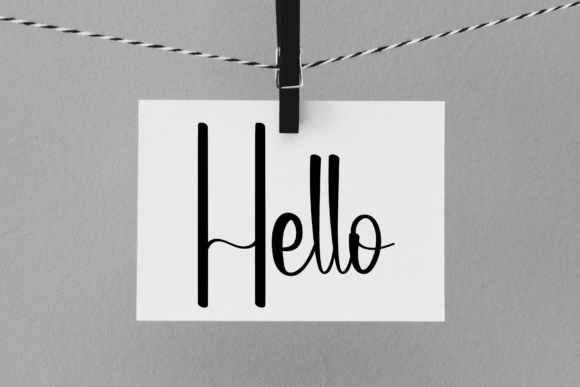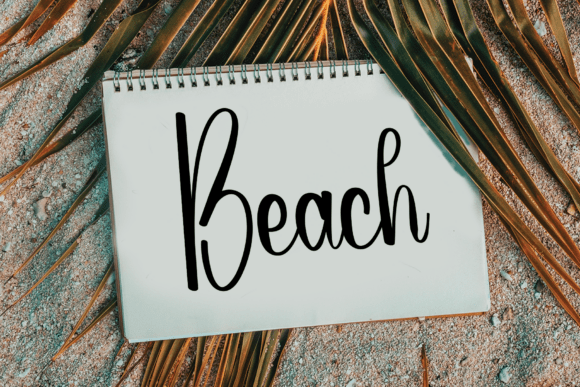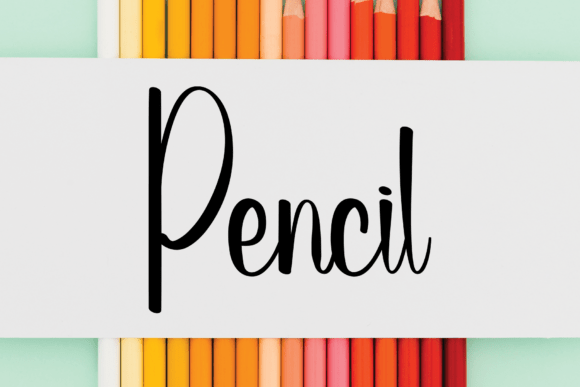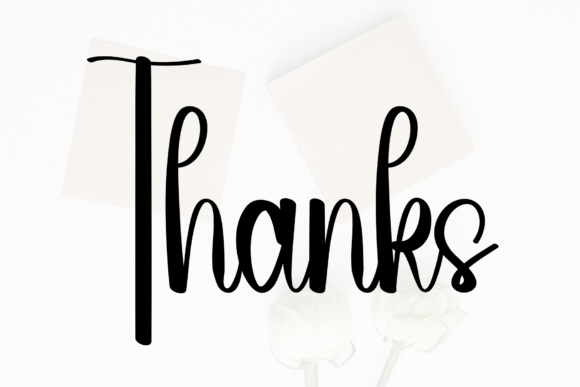
Introducing Chemistry Valentine Font: The Perfect Handmade Script for Your Designs
Are you looking for a font that adds a touch of organic warmth and personality to your designs? Look no further than Chemistry Valentine, a beautiful handmade script typeface that exudes a sense of heartfelt charm. With its fluid, rhythmic strokes and delightful loops, this font is perfect for designers and crafters seeking to infuse their work with a personal and intimate feel.
The Characteristics of Chemistry Valentine Font
Chemistry Valentine font boasts a range of characteristics that make it an ideal choice for a variety of design projects. Its fluid strokes and charming loops mimic authentic handwriting, giving your designs a sense of warmth and personality. The font’s handmade nature ensures that each letter and word has a unique, organic feel that sets it apart from more traditional typefaces.
Perfect for Branding, Greeting Cards, and Event Invites
Incorporating the Chemistry Valentine typeface into your workflow is perfect for a range of design applications. If you’re looking to brand artisanal products, create romantic greeting cards, or design intimate event invites, this font is an excellent choice. Its charming and personal feel makes it ideal for designs that require a touch of warmth and personality.
Tips for Using Chemistry Valentine Font
To get the most out of the Chemistry Valentine font, try pairing it with a sturdy serif font for a vintage apothecary or academic vibe. This contrast between the fluid, handwritten feel of Chemistry Valentine and the solidity of a serif font creates a visually appealing combination that’s perfect for designs that require a sense of sophistication and elegance.
One of the standout features of the Chemistry Valentine font is its versatility. This font can transition seamlessly from a cozy coffee shop menu to a sophisticated wedding suite, making it an excellent addition to any designer’s toolkit. Whether you’re creating a design for a romantic occasion or a more everyday application, Chemistry Valentine is sure to bring a touch of warmth and personality to your work.
Enhancing Your Designs with Chemistry Valentine
So, how can you use Chemistry Valentine to enhance your designs? Here are a few ideas to get you started:
- Use Chemistry Valentine as a “hero” font to draw attention to key words or phrases in your design.
- Pair Chemistry Valentine with a sturdy serif font to create a visually appealing contrast.
- Use Chemistry Valentine to create a sense of continuity across multiple design elements, such as business cards, letterheads, and packaging.
Why Designers and Crafters Love Chemistry Valentine
So, why do designers and crafters love the Chemistry Valentine font? Here are just a few reasons:
- Its handmade nature gives designs a unique, personal feel.
- Its fluid strokes and charming loops mimic authentic handwriting.
- Its versatility makes it suitable for a range of design applications.
- Its ability to pair well with a range of other fonts and design elements.
In conclusion, the Chemistry Valentine font is a beautiful handmade script typeface that’s perfect for designers and crafters seeking to add a touch of organic warmth and personality to their designs. With its fluid strokes, charming loops, and versatile nature, this font is sure to become a staple in any designer’s toolkit. Whether you’re creating romantic greeting cards, branding artisanal products, or designing intimate event invites, Chemistry Valentine is the perfect choice.